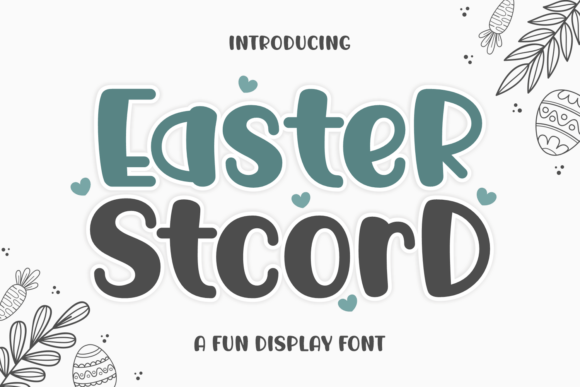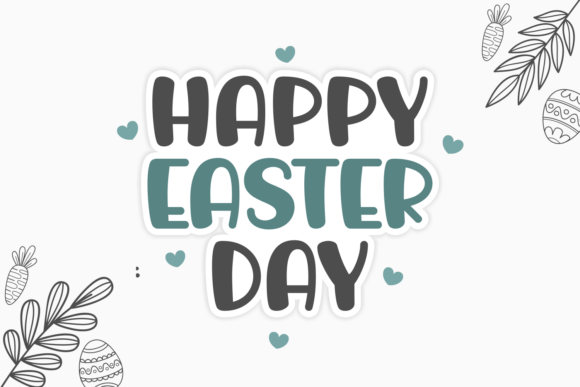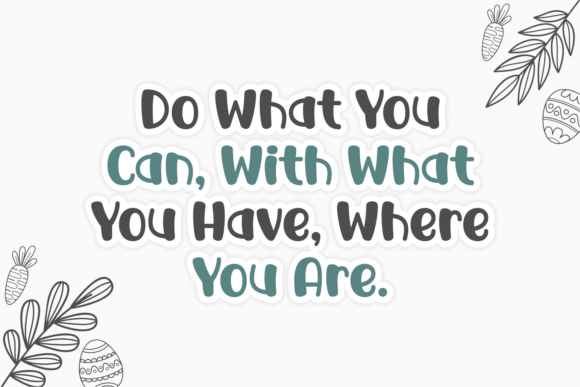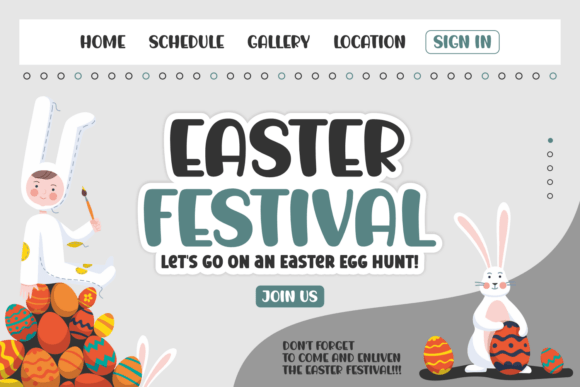
Easter Stcord Font: A Cute Display Font for Cricut & Spring Crafts
About the Easter Stcord Font
Meet Easter Stcord Font, a stunning font that brings a touch of elegance and professionalism to any design. Easter Stcord is a playful and cheerful display font perfect for seasonal designs. With its bouncy letterforms, rounded shapes, and cute heart accents, it brings a sense of joy and friendliness. Ideal for Easter crafts, kids’ projects, greeting cards, or any fun design that needs a touch of whimsy and charm.
Easter Stcord excels in headlines, short playful taglines, and logos where its cheerful personality shines. It’s also well-suited for packaging design for children’s products or celebratory occasions. However, its playful nature makes it less suitable for body text or lengthy paragraphs, and it might feel overwhelming in UI contexts.
Consider pairing Easter Stcord with a clean sans-serif like Open Sans for a balanced contrast, or a more delicate script font like Great Vibes for a layered, whimsical effect. A geometric sans-serif could provide a modern counterpoint, grounding the font’s inherent playfulness.
Its overall personality is best described as friendly, lighthearted, and charming, making it ideal for brands targeting a young or family-oriented demographic.
Easter Stcord Font Usage Examples
Easter Stcord Font Example